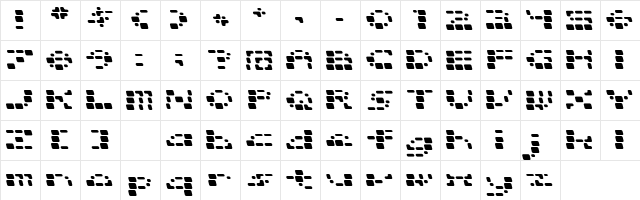
Squarrel Rounded
Design Context for Squarrel Typeface
Squarrel uses gentle rounded endings to create a warm, inviting typographic personality — less corporate than geometric sans, more refined than playful display fonts.
Well-suited to UI design, mobile interfaces, and any brand that wants approachability without sacrificing clarity.
Font Pairing: Pairs well with a rounded or humanist sans for body copy, maintaining the friendly tone without relying on Squarrel to carry extended reading.
Pro Tip: Use Squarrel for UI elements, app interfaces, and anywhere a friendly, approachable tone needs to be maintained without sacrificing clarity.